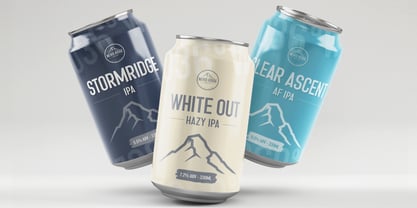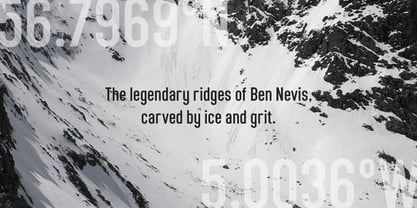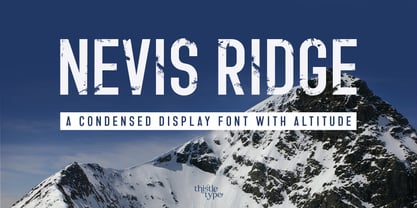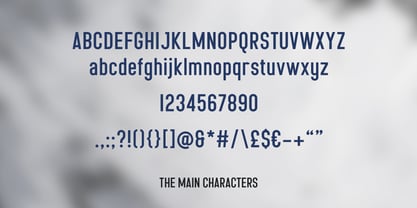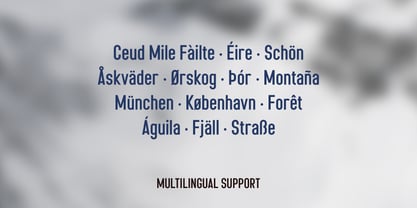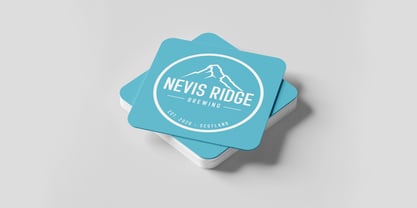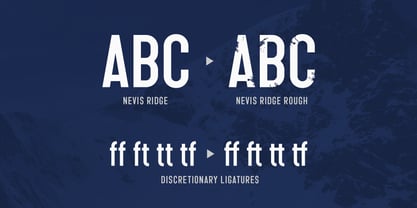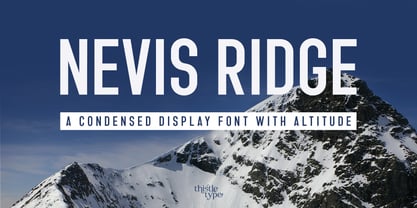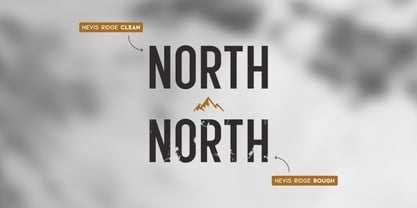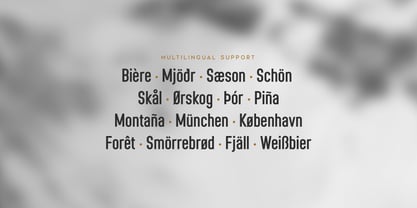
Nevis Ridge
by Thistle Type
Nevis Ridge is a bold, condensed display font inspired by the rugged ridgelines of Ben Nevis. Shaped by stone, wind, and altitude, it’s built to feel strong, compact, and full of character.
It works well when space is tight but impact still matters – ideal for logos, posters, packaging, and headlines that need to feel powerful without taking up too much room. The condensed proportions keep things sharp and efficient, while still holding plenty of presence.
Alongside the clean style, Nevis Ridge also includes a Rough alternate, adding grit and texture when you want something a bit more raw and expressive. Both styles are included as a family package, giving you flexibility from clean and controlled to weathered and bold.
• Strong condensed design that works well in tight spaces
• Built for impactful logos, headlines, and packaging
• The Rough alternate allows for a more textured, expressive feel
• Gives you both clean control and a more rugged option in one family
• Designed to hold character even at large display sizes
• Includes uppercase & lowercase characters, numerals, punctuation, and symbols
• Multilingual support for European languages